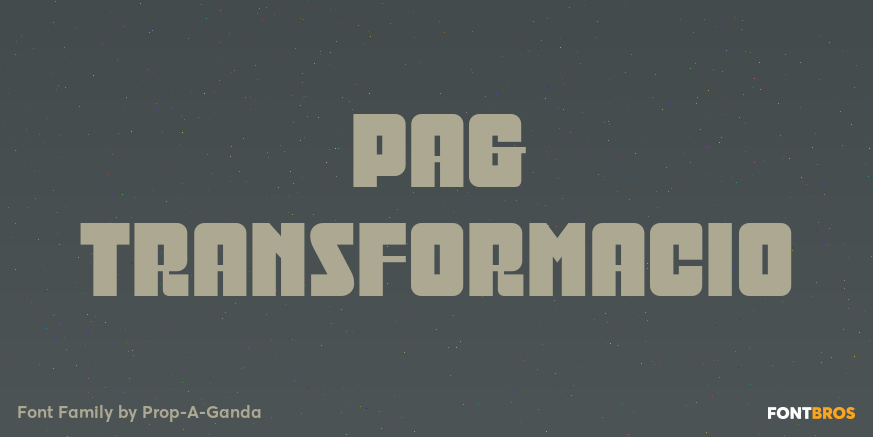
HomeFont BrosArt Deco (1910-1935)PAG Transformacio Art Deco (1910-1935)Sans Serif PAG Transformacio FacebookXPinterestWhatsApp 1 of 1 About PAG Transformacio Inspired by and based on retro propaganda posters, movie posters, shopfront lettering & advertisements in the early 20th century. This is perfect font for your retrostyle project.  DOWNLOAD NOW People also explored Avendes Font Happy Asitha Script Kitchen Font Handmade Roman JNL Font Metagraph Font Hi Sea Font Ballitina Font Meraldine Monogram Font Rollingstand Font 236 0 TagsPAG Transformacio Font Previous articleMenthaNext articleXyzai LEAVE A REPLY Cancel reply Comment: Please enter your comment! Name:* Please enter your name here Email:* You have entered an incorrect email address! Please enter your email address here Website: Save my name, email, and website in this browser for the next time I comment. Personal Use Free Summer Pisces Personal Use Free Read more about this font Starborn Font Personal Use Free Read more about this font Wallabys Junior Personal Use Free Read more about this font Angelia Personal Use Free Read more about this font BLOG 5 Fonts That Will Dominate Design Trends in 2026 5 Fonts for 2026 That Will Dominate Design Trends Typography plays a critical role in visual communication, and as we look ahead to 2026, it’s... Transform Your Website: Elevate Your Typography with 7 Best Web Font Generators Free Fonts Risk: Why Free Fonts Can Be Dangerous for Designers Modern Sans-Serif Fonts That Brands Love in 2025